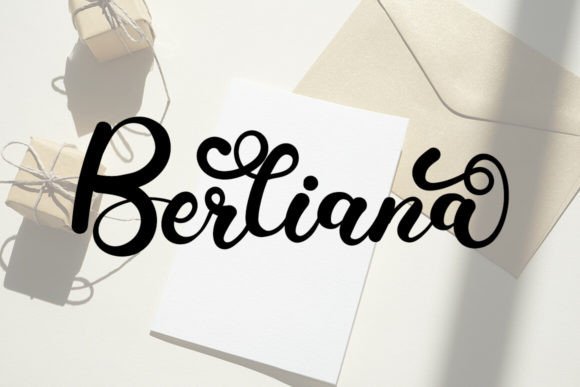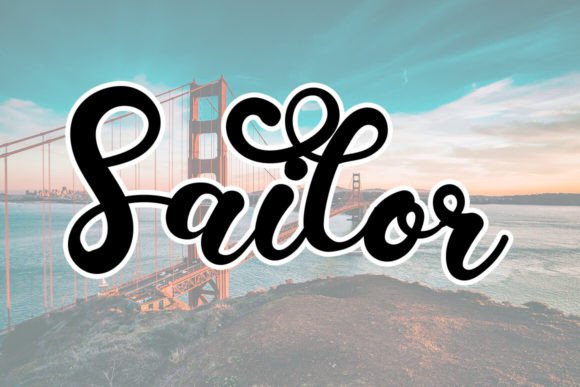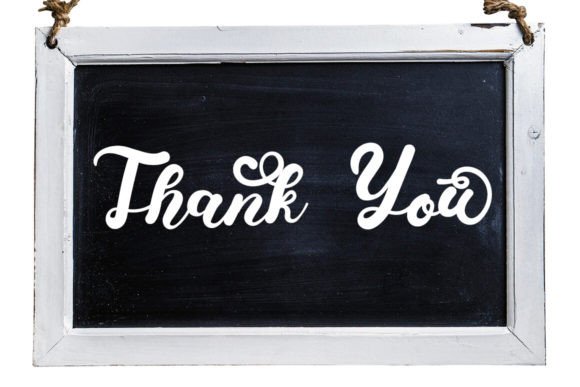
Introducing Ambition Font: The Epitome of Elegance and Playfulness
In the world of design, fonts play a pivotal role in conveying the tone and personality of a brand. A well-crafted font can elevate your designs, making them more engaging, memorable, and aesthetically pleasing. Today, we’re thrilled to introduce Ambition Font, a masterpiece that embodies the perfect harmony of beauty and sweetness. This exquisite font is poised to revolutionize your design endeavors, offering a freshness that’s as clean as it is elegant.
Unleashing Versatility in Design
Ambition Font is designed to be versatile, making it an ideal choice for a vast array of projects. Whether you’re working on a formal corporate design or a playful, informal campaign, this font seamlessly straddles the line between sophistication and playfulness. Its unique characteristics allow it to adapt to various design contexts, ensuring that your message is conveyed with clarity and style.
A Delightful Visual Surprise in Every Stroke
What sets Ambition Font apart is its ability to infuse an irresistibly joyful element into your designs. Every stroke is a delightful visual surprise, adding a touch of whimsy and personality to your work. This font is engineered to evoke emotions, making it perfect for designers and crafters who want to create memorable brand experiences. With Ambition Font, you can add a dash of playfulness to your designs, setting them apart from the ordinary.
The Embodiment of Simplicity
In an era where complexity often reigns supreme, Ambition Font is a breath of fresh air. This font is an embodiment of simplicity, carefully crafted to streamline the design process. Its clean lines, elegant curves, and uncluttered aesthetic make it easy to work with, allowing you to focus on the creative aspects of your project. By adopting Ambition Font, you can elevate your designs, making them more visually appealing and effective.
Elevate Your Designs, Elevate Your Business
By incorporating Ambition Font into your design workflow, you can witness your business flourishing aesthetically, like never before. This font has the power to transform your brand’s visual identity, making it more engaging, memorable, and professional. Whether you’re a designer, craftsperson, or entrepreneur, Ambition Font is an invaluable asset that can help you achieve your creative goals.
Key Features of Ambition Font
• Versatility: Suitable for a wide range of projects, from formal to informal designs.
• Elegance: Exudes a freshness that’s as clean as it is elegant.
• Playfulness: Infuses a joyful element into your designs, making them more engaging.
• Simplicity: Streamlines the design process with its clean and uncluttered aesthetic.
• Memorability: Helps create memorable brand experiences that leave a lasting impression.
Font Name Ambition Font
Author Eddygoodboy
In conclusion, Ambition Font is a game-changer for designers and crafters who want to elevate their designs and take their brand’s visual identity to the next level. With its exquisite harmony of beauty and sweetness, versatility, and playful informality, this font is poised to become an essential tool in your design arsenal. By adopting Ambition Font, you can create stunning designs that leave a lasting impression, drive engagement, and propel your business forward.